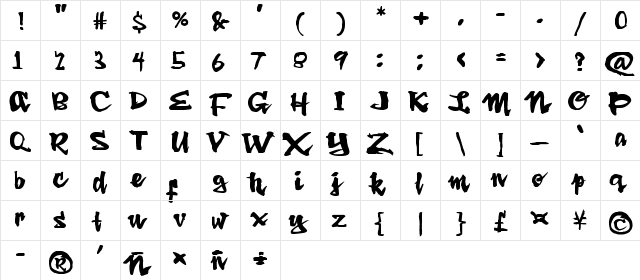
Ding Rooster Regular
Design Context for Ding Rooster Typeface
Ding Rooster is a composed and adaptable typeface that performs quietly and consistently across a wide range of design contexts.